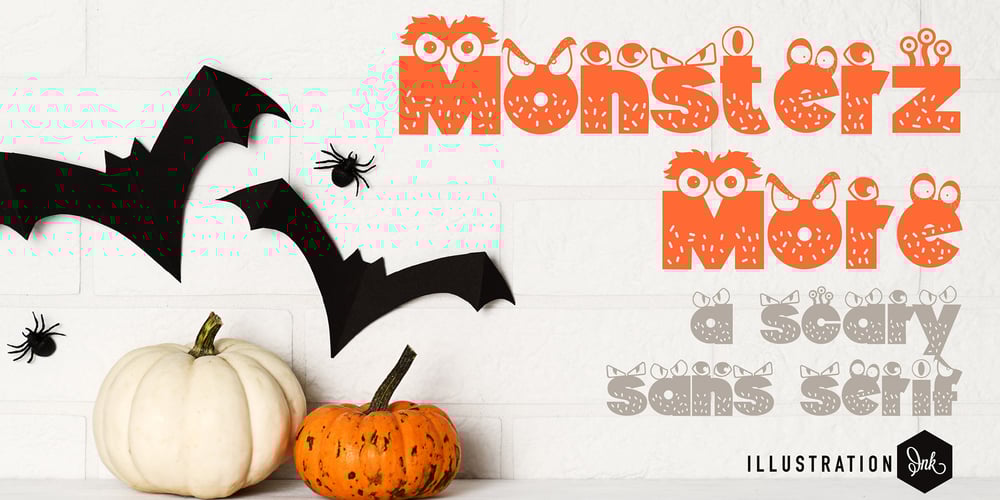
ZP Monsterz More Font Family was designed by Illustration Ink and published by Illustration Ink. ZP Monsterz More contains 1 styles and family package options. This adorable, blocky font features monster elements and fur on each letter. Great for Halloween or just fun projects for kids.